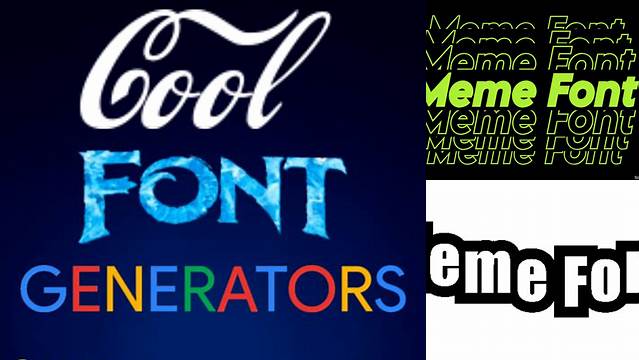
Get Cool Meme Text Fonts For Free!
Hey everyone, are you ready to level up your meme game? Of course, you are! If you're looking to jazz up your memes with some killer text, you're in the right place. We're diving deep into the awesome world of meme text fonts, and the best part? They're all free! Forget boring, default fonts; we're talking about the styles that make your memes pop, get shared like crazy, and earn you those sweet, sweet likes and comments. Let's get started on how to find these fonts, use them, and make your memes unforgettable. Let's get this show on the road, folks!
Finding the Perfect Free Meme Text Font
Popular Font Styles for Meme Creation
Now, let's talk about the actual fonts. Some are more popular for memes than others. You've got your classic Impact font, which is basically the king of meme text. It's bold, easy to read, and just screams meme. Then there's Arial, which is versatile. Other fantastic fonts like Bebas Neue, Montserrat, and Open Sans are excellent choices, too. They offer different vibes, from sleek and modern to more playful and bold, allowing you to match the font to the specific meme's tone. Experimentation is key here. Try different fonts to see what works best with your images and the message you want to convey. Some fonts are better for short, punchy text, while others are better for longer captions. It's all about finding the right fit. Remember, the right font can elevate your meme from good to legendary.
Using Meme Text Fonts in Your Memes
Okay, fonts installed, let’s get to the fun part – actually making memes! Open up your favorite image editing software. This could be Photoshop, GIMP (a free alternative to Photoshop), Canva, or any other tool you like. Import your image, add your text using the text tool, and then choose your new, awesome font from the font dropdown menu. Experiment with different font sizes, colors, and styles to see what works best. Consider the image and the meme's overall tone. A bold, blocky font might be great for a serious meme, while a more playful font could be perfect for something lighthearted. Remember to consider the background of your image when choosing a font color. Make sure the text is easy to read. Try adding a stroke (outline) to your text to help it stand out against busy backgrounds. Contrast is your friend! Test out different font sizes to find the right balance. Text that is too small can be hard to read, while text that is too large can cover up important parts of the image. There is a lot of trial and error involved in meme creation. And that’s part of the fun!
Optimizing Text Placement and Readability
Readability is key when creating memes. You want people to understand your genius, right? So, the text needs to be clear. Think about the layout. Placing text strategically can make a huge difference. Don't clutter the image with too much text. Keep it concise. Use the whitespace to your advantage. Consider the background. If it's a light background, use a dark font, and vice versa. Adding a stroke (outline) around the text is also a fantastic trick to make it stand out. When you're using a font, always remember to consider the overall aesthetic and the context of your meme. The wrong font choice can ruin the whole effect. Think about your audience. What kind of memes do they like? What fonts do they respond to? Tailoring your font choice to your audience can make your memes more shareable and engaging. The right text can make a meme go viral.
Editing Your Meme Text with Different Software
Now that you have your fonts, let's discuss where to add the text! The options are limitless. Photoshop is the industry standard for advanced meme creation, offering comprehensive control over fonts and images. GIMP is a great free alternative, providing many of the same features. Canva is excellent for quick meme generation. It is user-friendly and has built-in font options. Other apps and software include PicMonkey, BeFunky, and many more that are available online. The key is finding a tool that suits your skill level and needs. Experiment with different software options to find what works best for you. Always check for software updates to ensure the latest font compatibility. Using an editor can make a big difference.
Optimizing Your Memes for Social Media Sharing
Optimizing your memes for social media is essential. Choose the right image format. JPEG is great for photos. PNG is best for graphics. Size your images. Make sure the dimensions are appropriate for the platform you're sharing on. Use high-quality images. Make sure your text is clear and readable. Write a catchy caption that grabs attention and encourages engagement. Use relevant hashtags to reach a wider audience. Tag other accounts that might be interested in your meme. Share your meme on multiple platforms. Analyze the results and use the feedback to improve your memes. Test your memes. Experiment with different approaches to see what works best. The right choice can make a big difference.